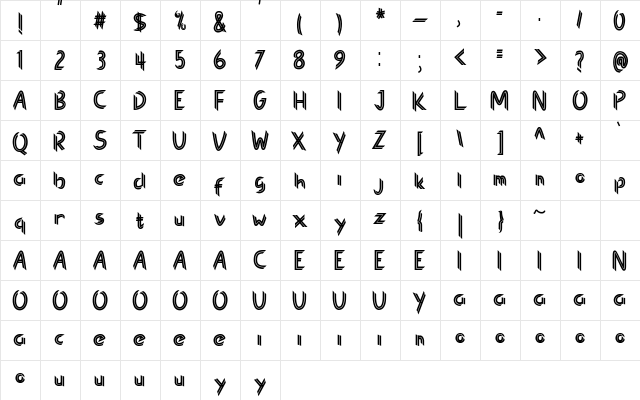
Christmas Monogram Regular
Design Context for Christmas Monogram Typeface
Christmas Monogram brings the precise, column-aligned rhythm of monospaced typography to designs that value technical clarity and systematic order.
A natural fit for code editors, technical documentation, developer-focused branding, and terminal-inspired UI.
Pro Tip: Pair Christmas Monogram with a proportional sans for UI contexts where code-style labels and regular body copy need to coexist.